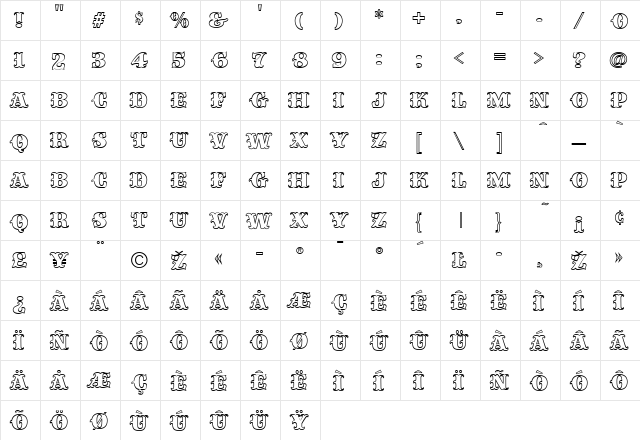
CircustimeOutline Regular
Design Context for CircustimeOutline Typeface
CircustimeOutline brings ornamental detail and strong personality to headlines and identities, where visual impact matters more than quiet functionality.
Font Pairing: Pair with a clean neutral sans-serif for body copy to let CircustimeOutline's character lead without overwhelming the composition.
Pro Tip: Treat CircustimeOutline as the centrepiece of your typographic hierarchy. One strong heading set in a decorative face can carry an entire layout.